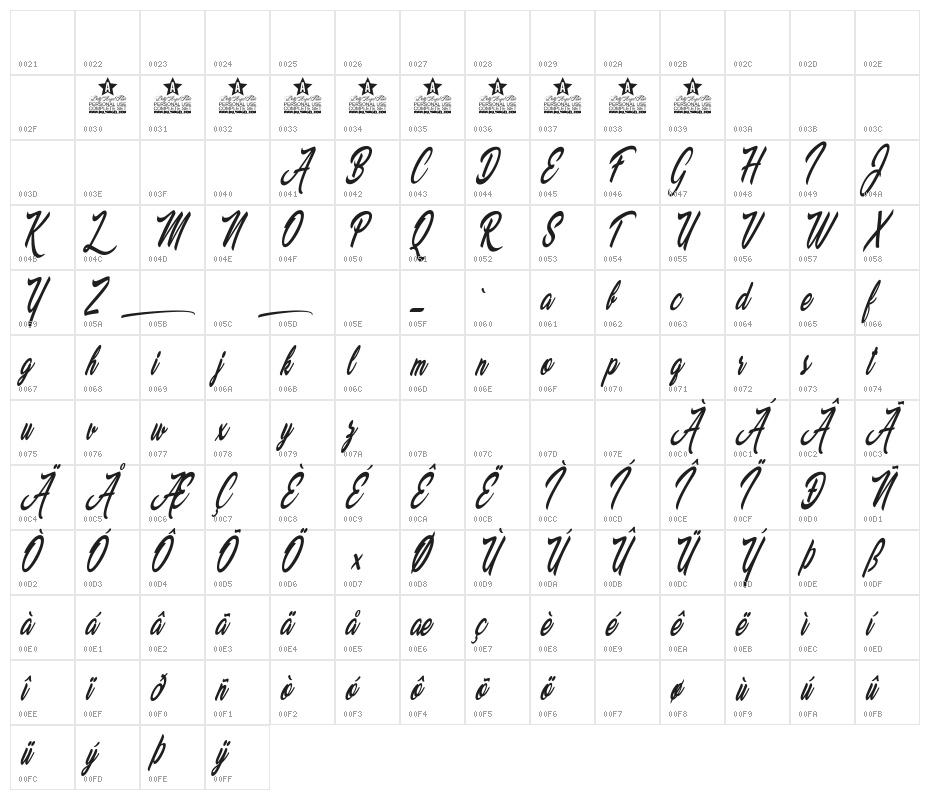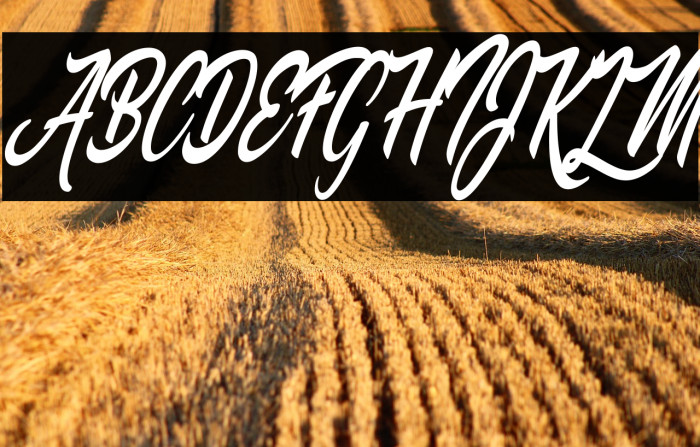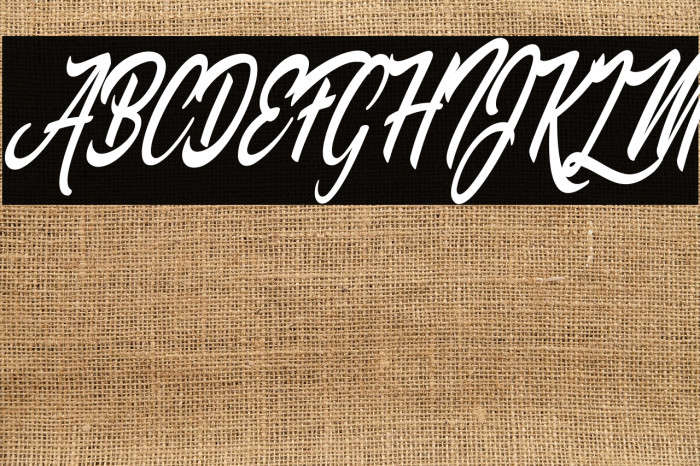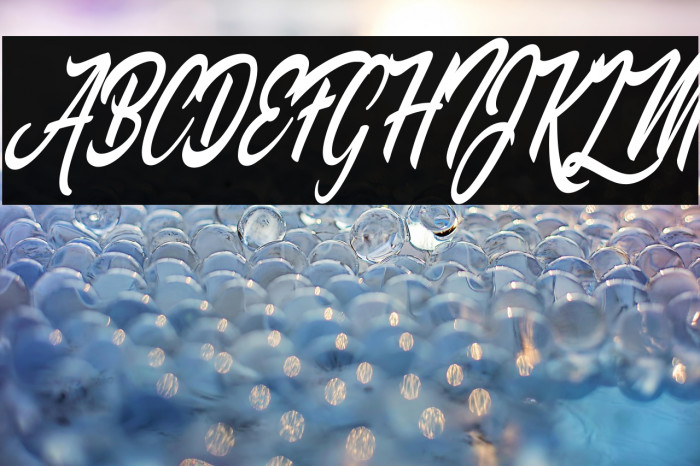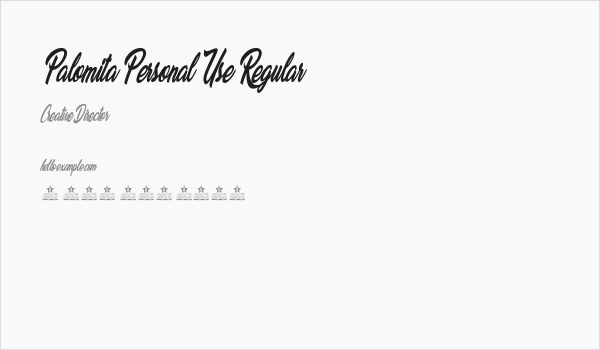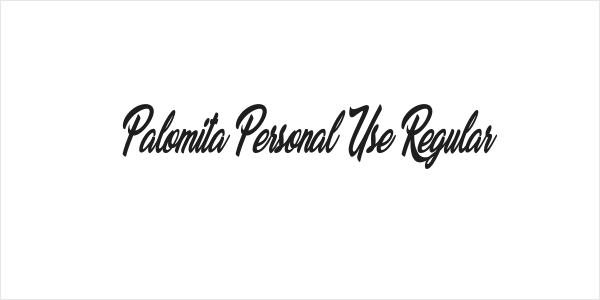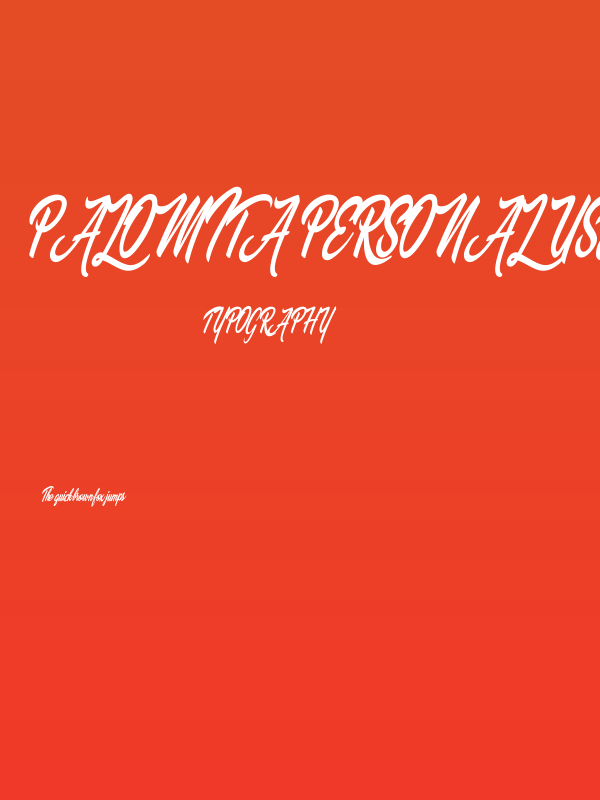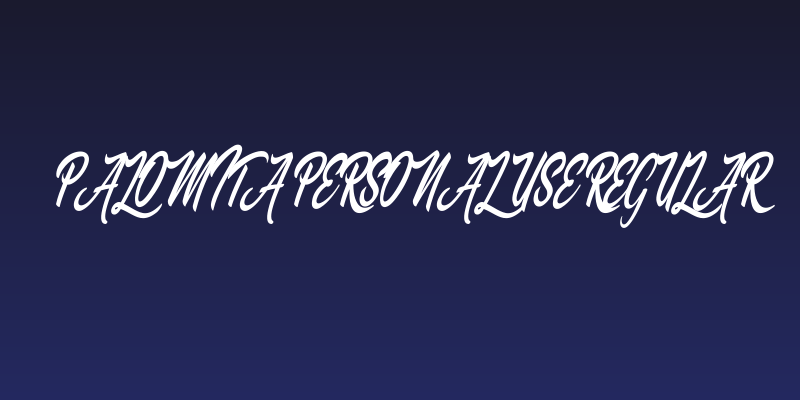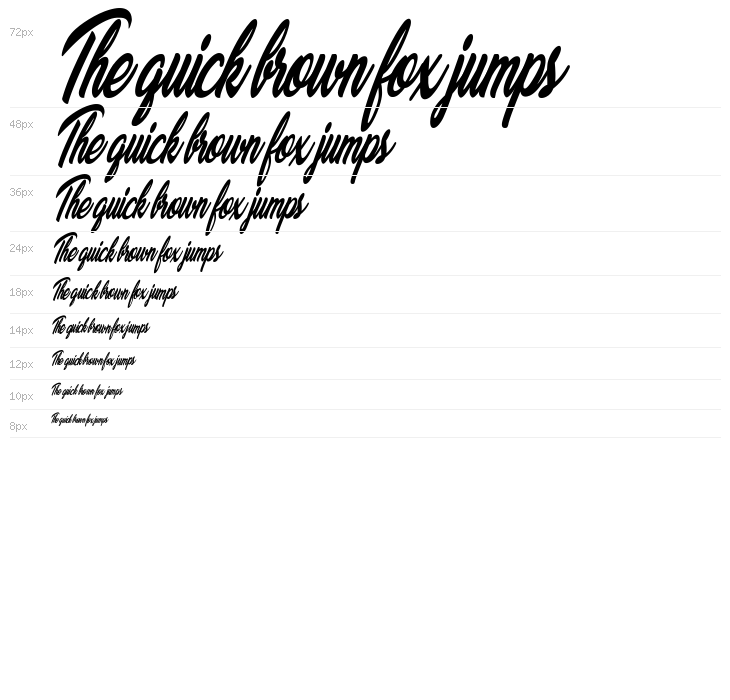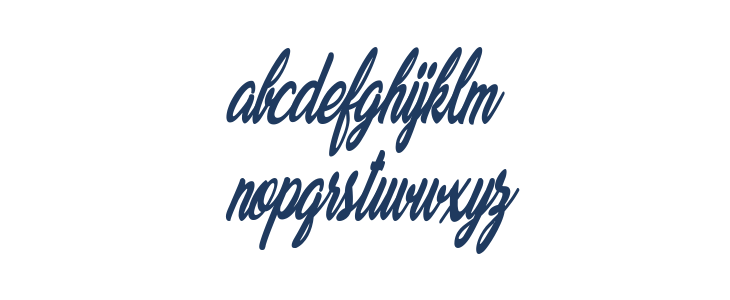
Palomita Personal Use Regular Font
Palomita Personal Use Regular Description
This font features a bold and dynamic script style with a flowing, cursive design. The uppercase letters are characterized by their dramatic, sweeping curves and elegant flourishes, giving them a sense of movement and energy. The lowercase letters maintain a consistent style, with smooth, connected strokes that enhance readability while preserving the font's artistic flair. The numbers and special characters are designed to match the overall aesthetic, ensuring a cohesive look across all text elements. The font's bold weight and high contrast between thick and thin strokes make it stand out, ideal for creating eye-catching designs.